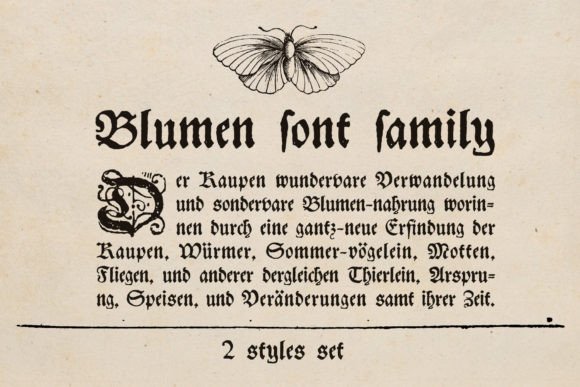
Blumen Font: Unleash the Power of Classic Blackletter Typography
Are you looking for a font that exudes elegance, sophistication, and drama? Look no further than the Blumen Font, a striking blackletter typeface that is sure to elevate your design projects to the next level. With its intricate and ornate details, sharp angles, and dramatic strokes, this font is perfect for designers and crafters who want to add a touch of classic charm to their work.
The Characteristics of Blumen Font
The Blumen Font is a classic blackletter typeface that boasts a range of distinctive characteristics. Its intricate and ornate details are reminiscent of traditional calligraphy, while its sharp angles and dramatic strokes create a bold and commanding presence. The font’s tall, slender lines and elegant curves evoke a sense of refinement and sophistication, making it perfect for designs that require a touch of luxury and drama.
Uses for Blumen Font
The Blumen Font is a versatile typeface that can be used in a wide range of design projects. Here are just a few ideas to get you started:
- Invitations: Whether you’re planning a wedding, a formal gala, or a special celebration, the Blumen Font is the perfect choice for creating elegant and sophisticated invitations.
- Logos: Add a touch of classic charm to your logo with the Blumen Font. Its bold and commanding presence makes it perfect for businesses that want to convey a sense of tradition and heritage.
- Book Covers: The Blumen Font is a popular choice for book covers, particularly for historical fiction, fantasy, and romance novels. Its dramatic and elegant appearance helps to create a sense of intrigue and sophistication.
- Stationery: Add a touch of elegance to your stationery with the Blumen Font. Its refined and sophisticated appearance makes it perfect for formal letters, cards, and other correspondence.
Tips for Using Blumen Font
Here are a few tips to help you get the most out of the Blumen Font:
- Use it sparingly: The Blumen Font is a bold and dramatic typeface, so it’s best to use it sparingly to avoid overwhelming your design. Use it for headings, titles, or key phrases to create a sense of emphasis and drama.
- Pair it with a simple font: To create a striking contrast, pair the Blumen Font with a simple, sans-serif font. This will help to create a sense of balance and harmony in your design.
- Experiment with colors: The Blumen Font looks stunning in a range of colors, from rich blacks and dark grays to metallic golds and silvers. Experiment with different colors to find the one that works best for your design.
Why Choose Blumen Font?
So why choose the Blumen Font for your design projects? Here are just a few reasons:
- Elegance: The Blumen Font exudes elegance and sophistication, making it perfect for designs that require a touch of luxury and refinement.
- Versatility: The Blumen Font is a versatile typeface that can be used in a wide range of design projects, from invitations to logos to book covers.
- Uniqueness: The Blumen Font is a unique and distinctive typeface that will help your design stand out from the crowd.
In conclusion, the Blumen Font is a powerful and elegant typeface that is perfect for designers and crafters who want to add a touch of classic charm to their work. With its intricate and ornate details, sharp angles, and dramatic strokes, this font is sure to create a bold and commanding presence in any design project. Whether you’re creating invitations, logos, book covers, or stationery, the Blumen Font is a versatile and sophisticated choice that is sure to impress.